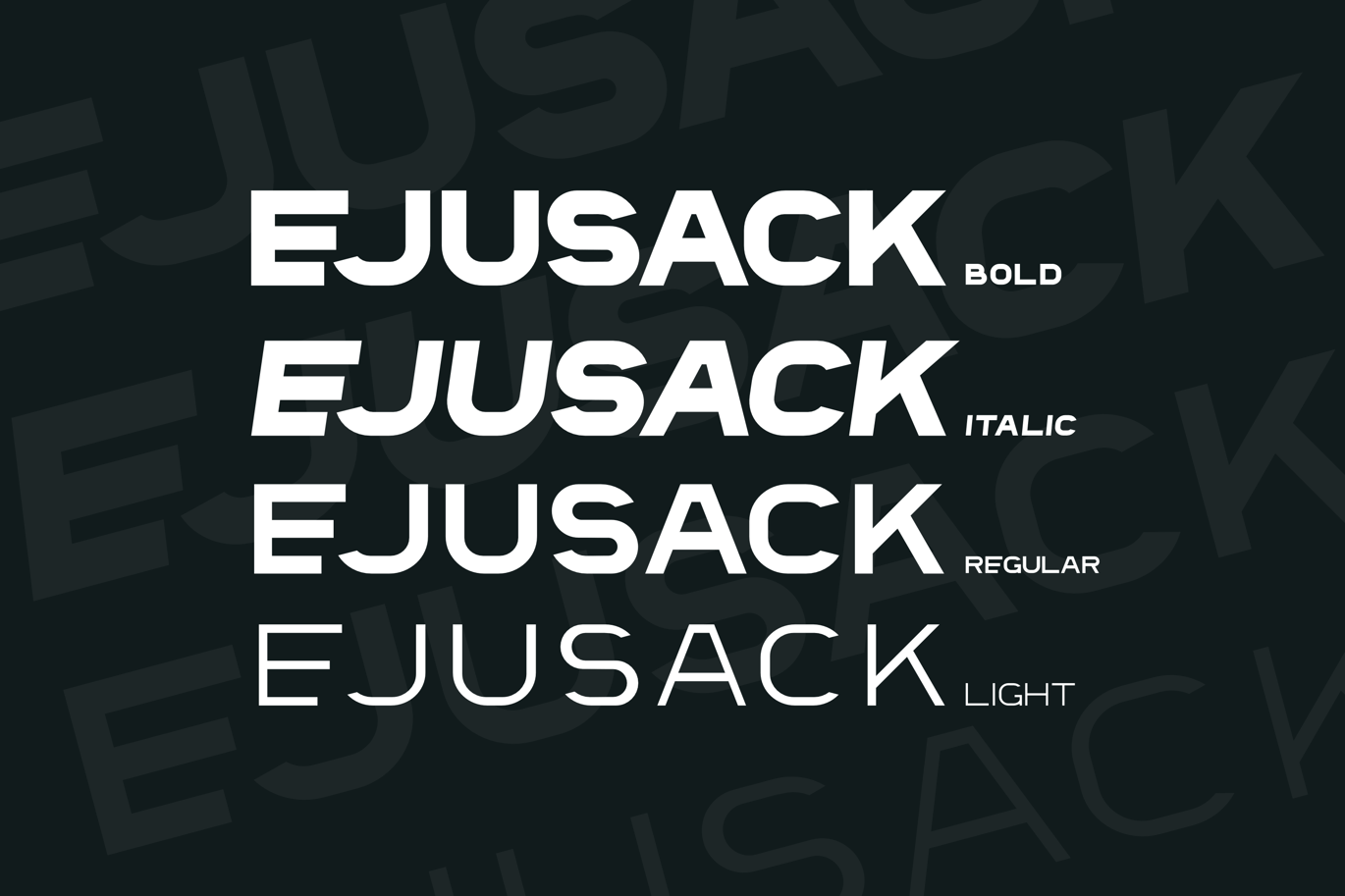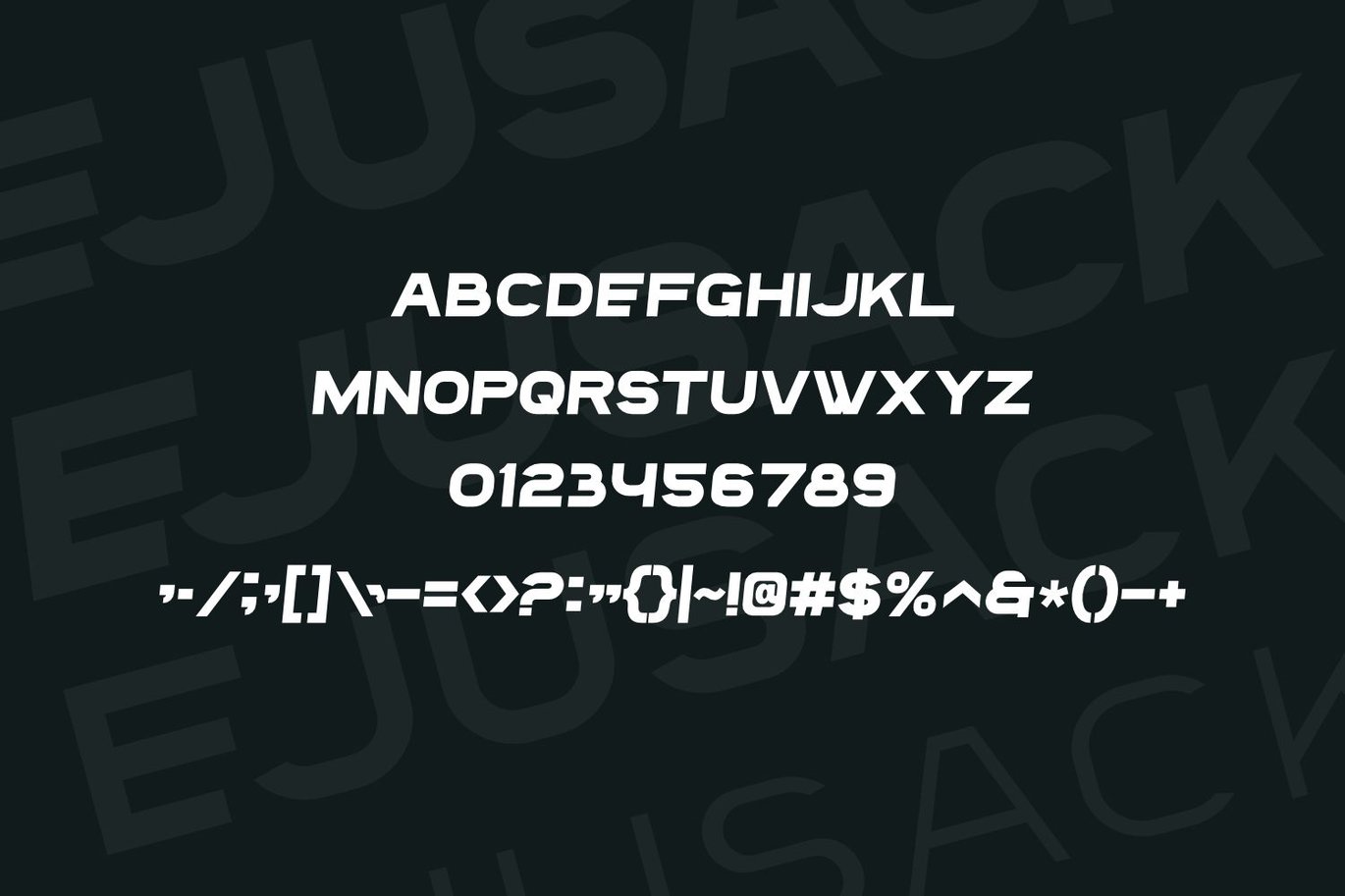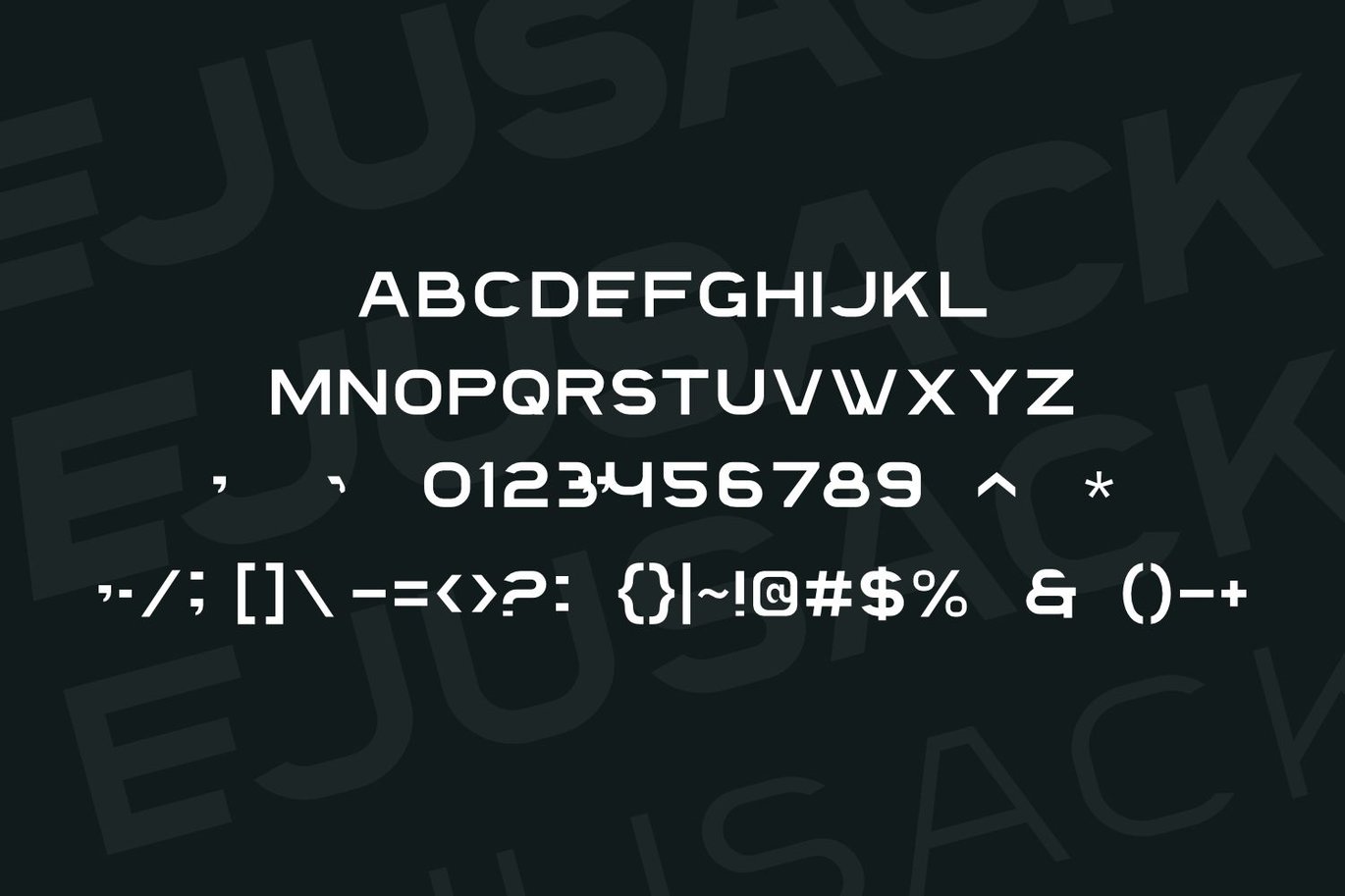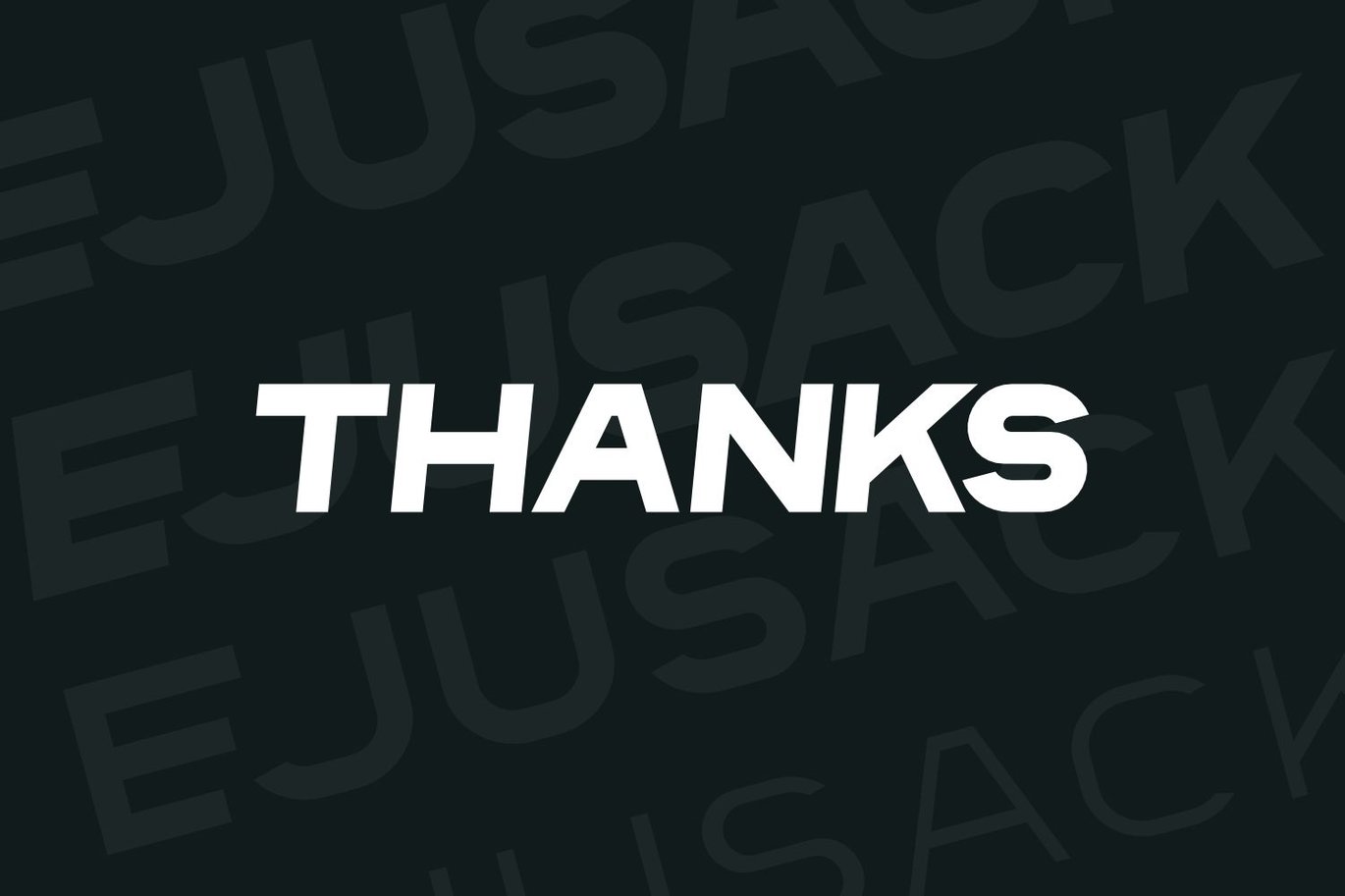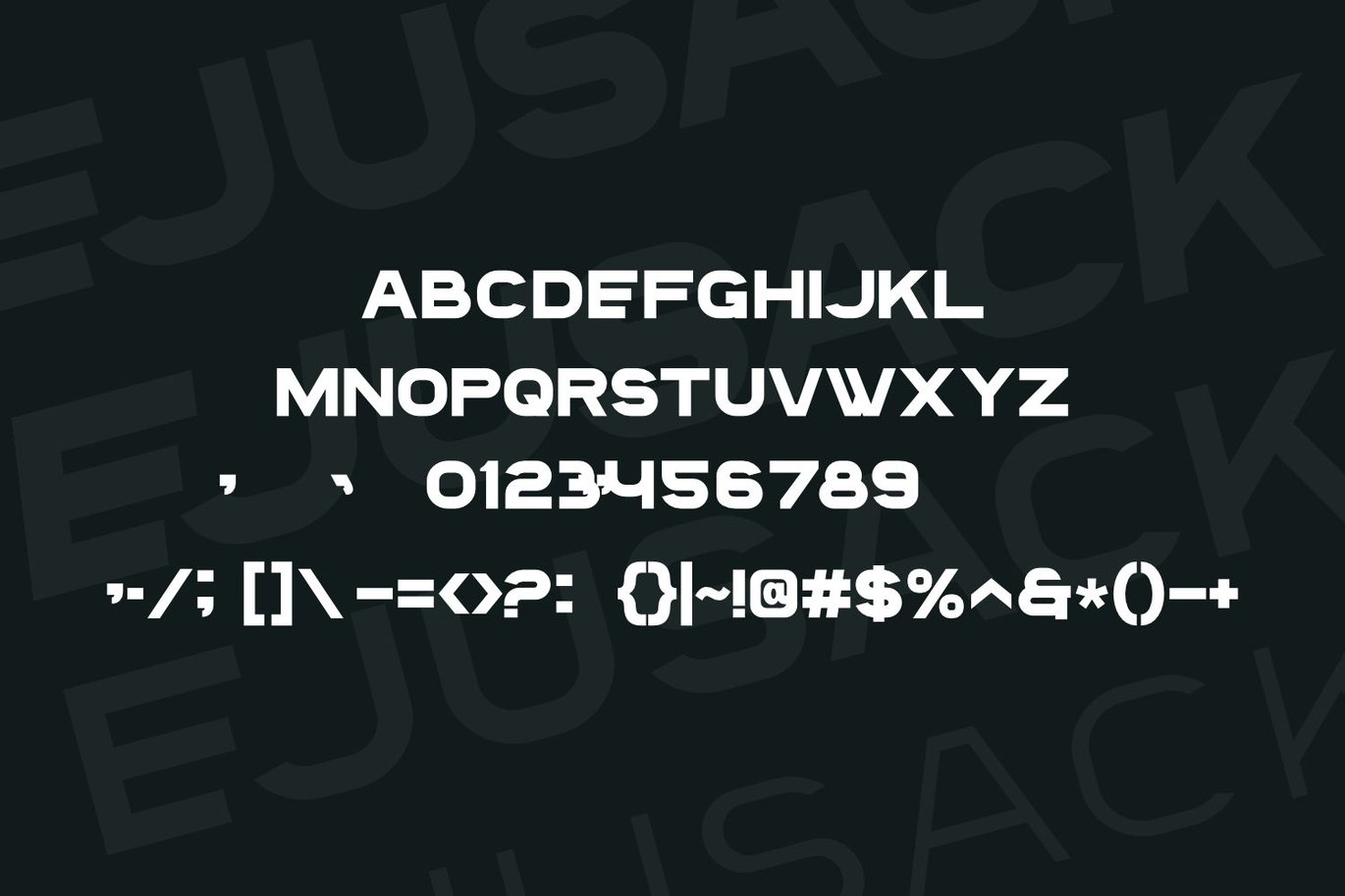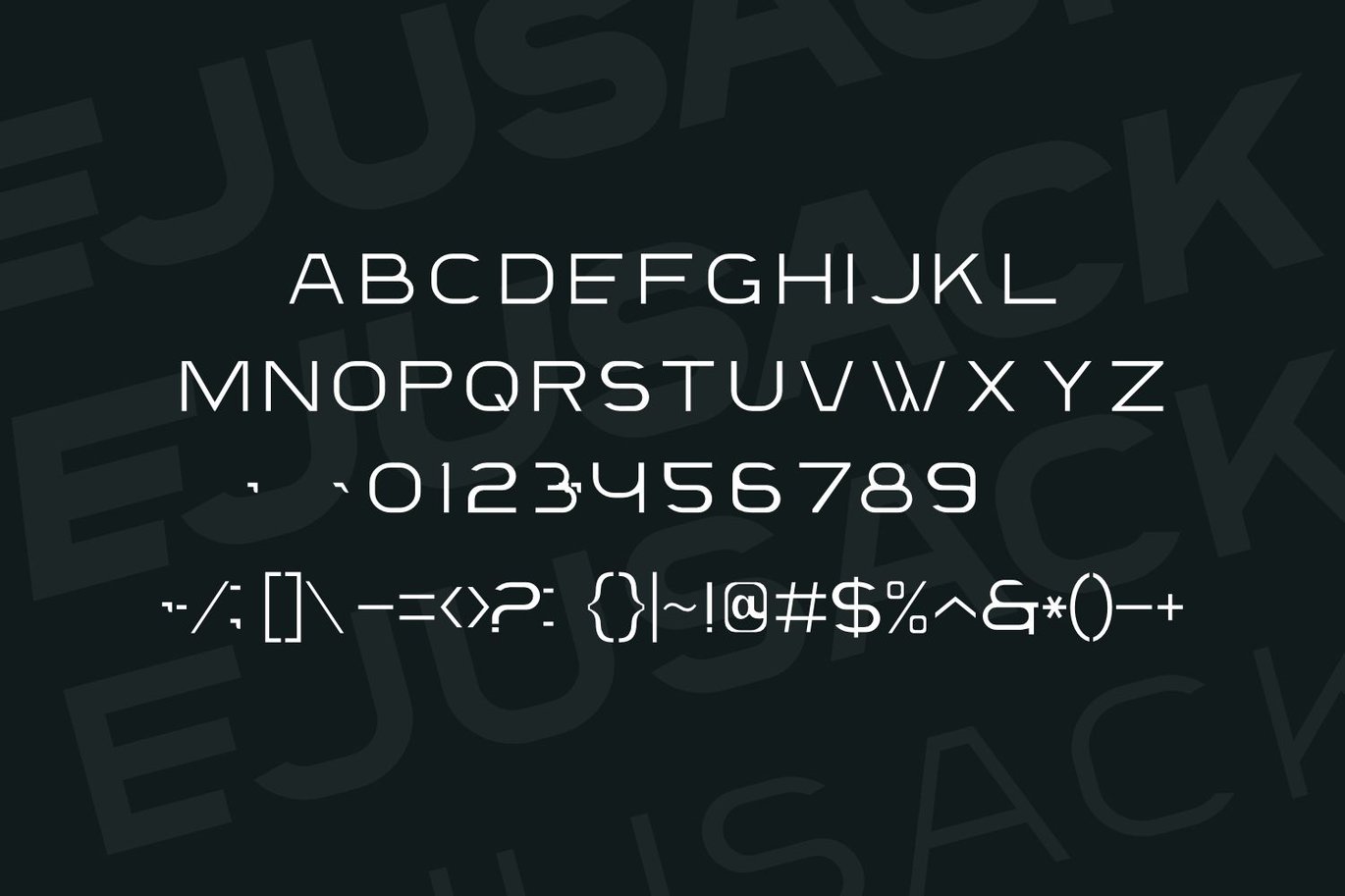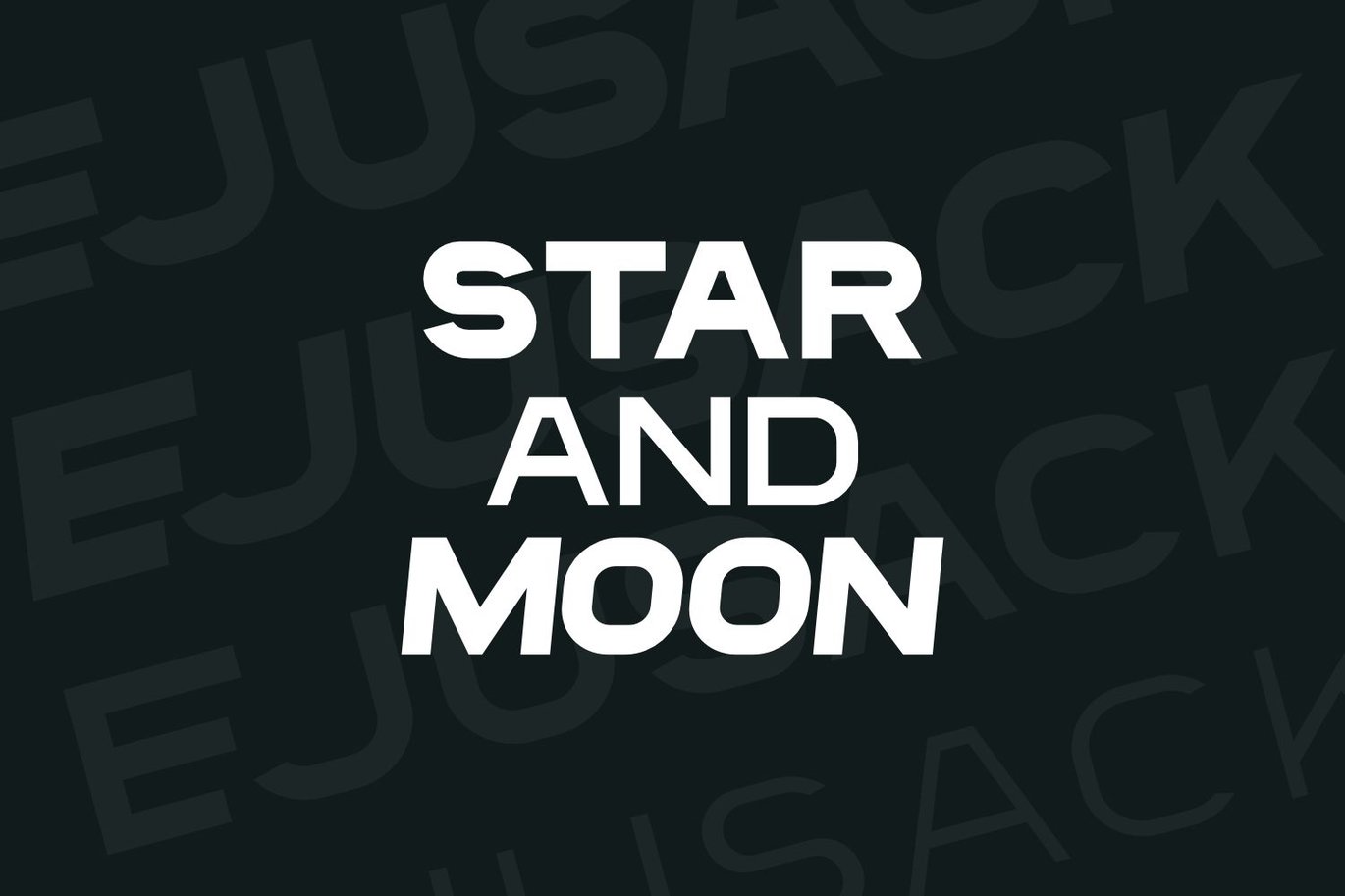
Ejusack Font
Introducing our new product Ejusack Font, Modern Font
Ejusack Font – Ejusack Font is an elegant and authentic display font. This font is suitable for any branding projects such as logos, t-shirt printing, esport and many more. extraordinary in many contexts.